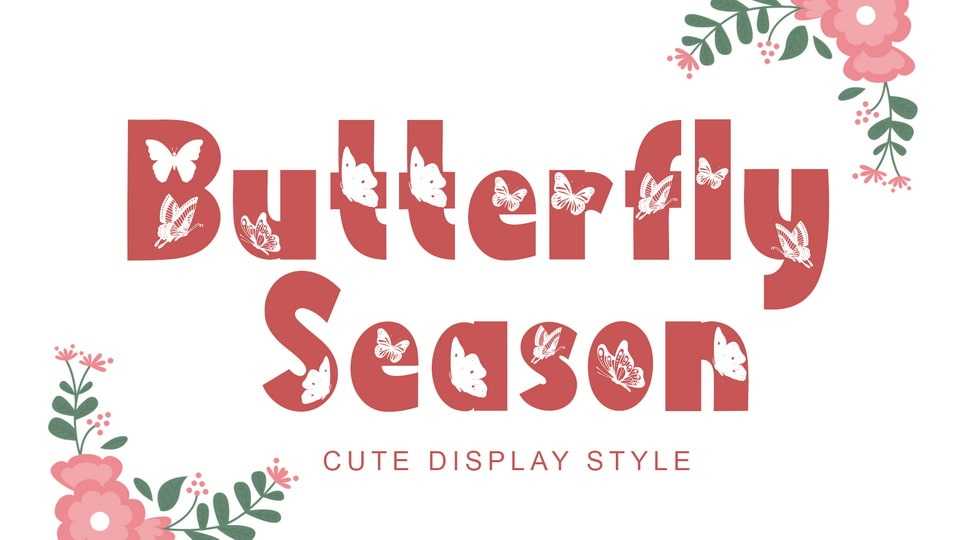
Download Butterfly Season font, a display typeface with butterfly decoration on each letter. Very suitable for use for spring, summer, holiday, posters, banners, branding, stickers, logos and others.